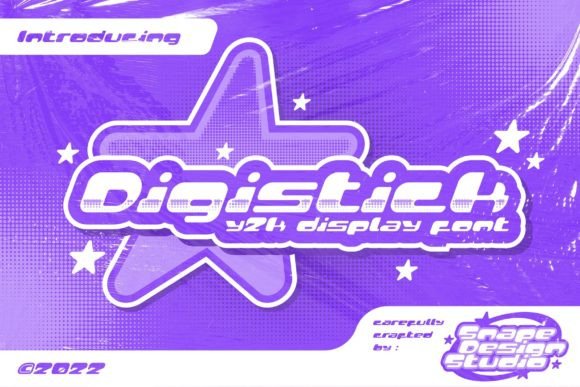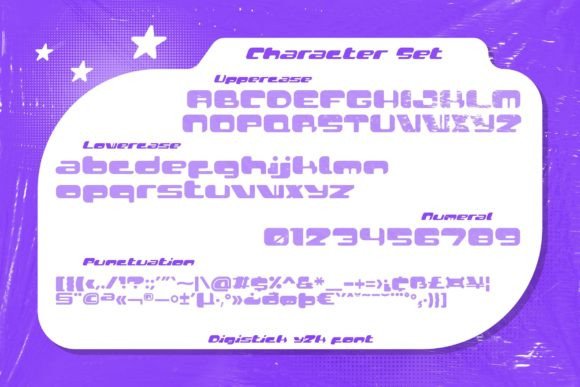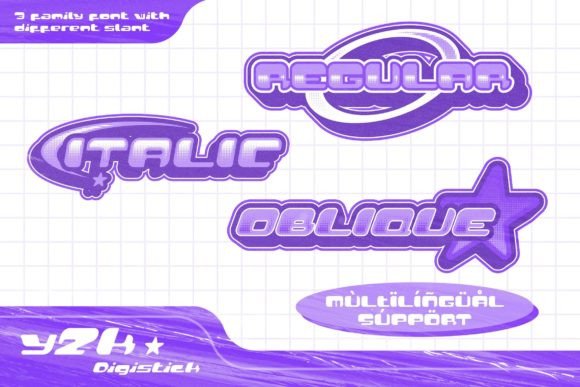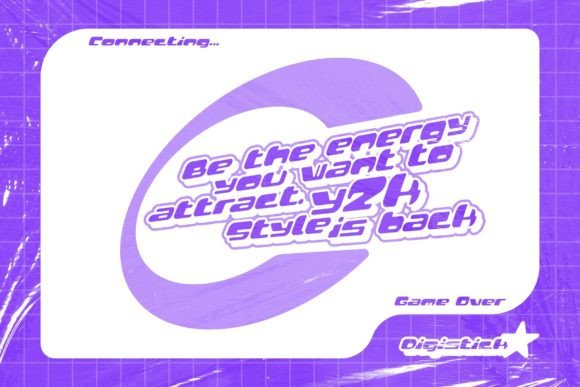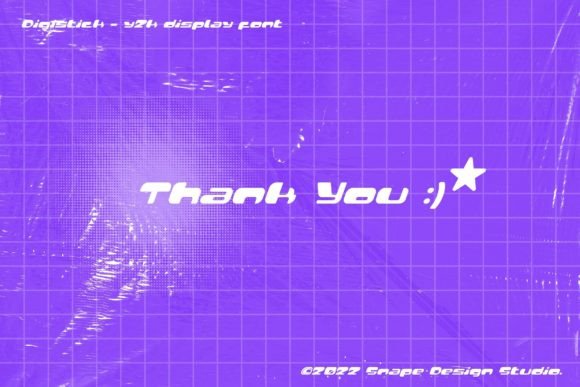
Digistick Font
Digistick is a futuristic font. Heavily influenced by the Y2K design era through music and their pop culture, is perfect for technology, digital, and space galaxy themes. Also suitable for movies, documentaries, films, logos, posters, games, book covers, headlines, titles, and many more projects.